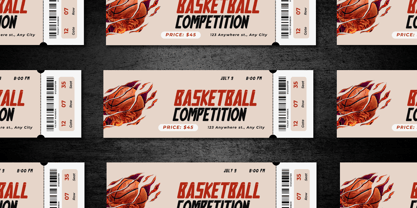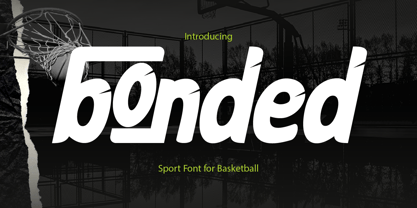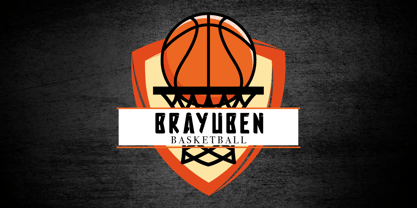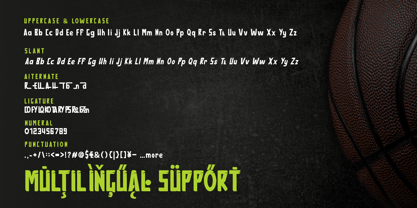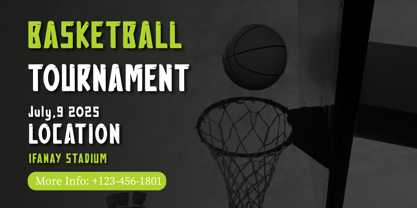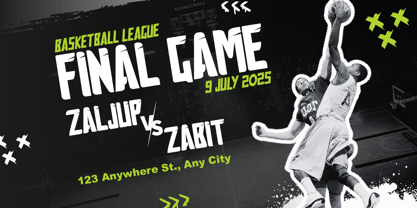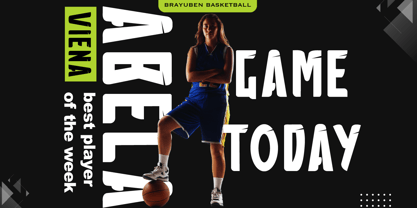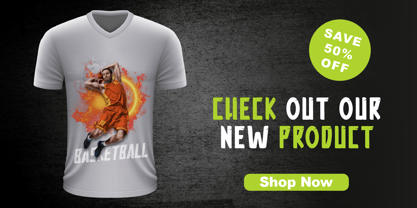
Bonded
by Twinletter
The Bonded Font Family was designed by Rozikan and published by Twinletter. Bonded contains 2 styles and family package options.
Unleash the spirit of competition with BONDED, a bold, impactful font designed for basketball events, team branding, and championship graphics. Featuring sharp edges and strong letterforms, this typeface is perfect for jerseys, posters, and promotional materials. Elevate your sports design projects with BONDED, ensuring your message is bold, loud, and full of action. Ideal for basketball tournaments, player stats, and MVP announcements.
- All glyphs and Feature
- Fonts include Multilingual: Support for 85 languages.